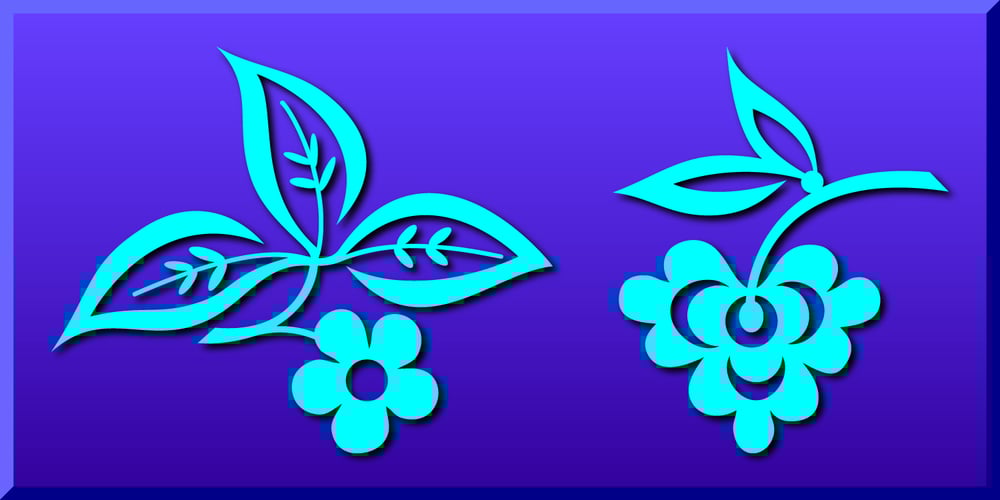
Floral Ornaments Font Family was designed by Gerald Gallo and published by Gerald Gallo. Floral Ornaments contains 1 styles and family package options. For many centuries, Chinese cut paper designs have been in common use. Floral Ornaments was inspired by these floral cut paper designs and contains a selection of 114 ornaments.